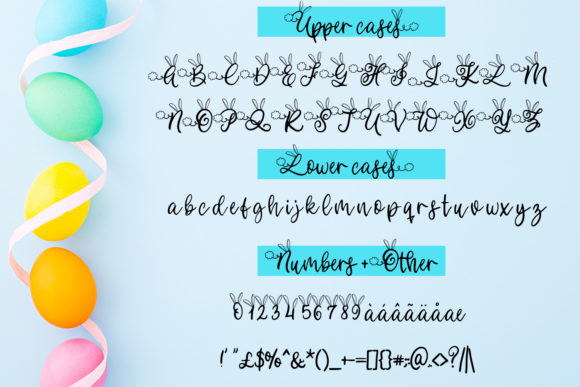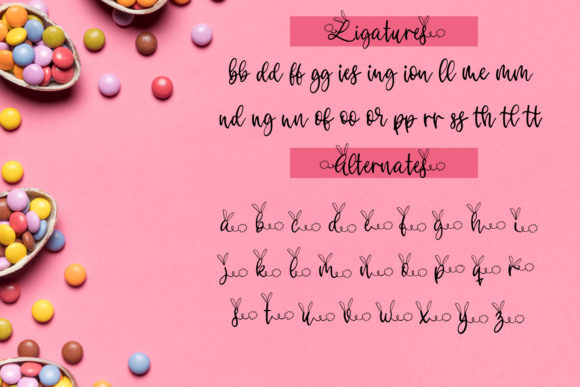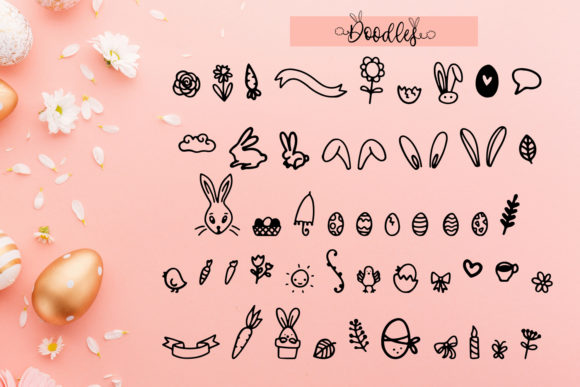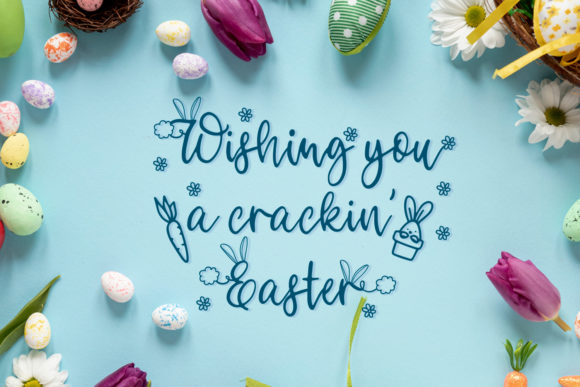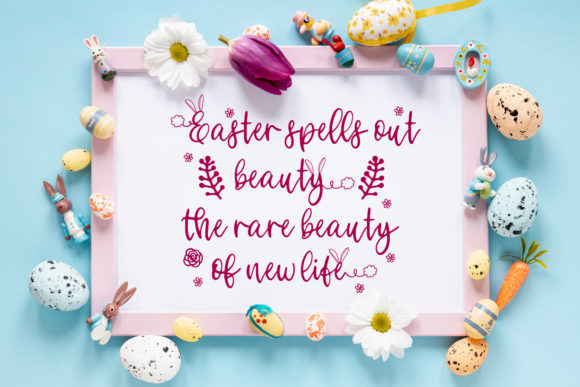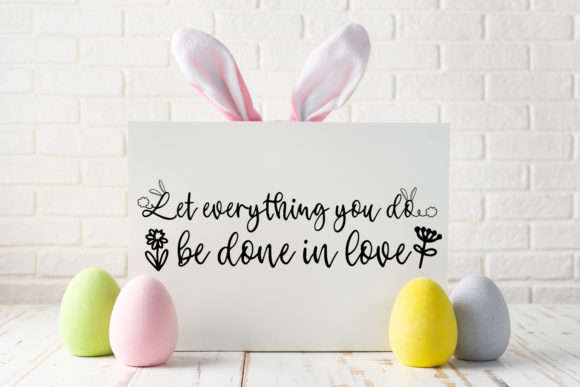
HomeScript FontsBunny Tail Font Script Fonts Bunny Tail Font FacebookXPinterestWhatsApp Bunny Tail Font Poster 2 Bunny Tail Font Poster 3 Bunny Tail Font Poster 4 Bunny Tail Font Poster 5 Bunny Tail Font Poster 6 Bunny Tail Font Poster 7 About Bunny Tail Font Bunny Tail celebrates all things Easter. This cute script will work like a charm in any Easter or spring craft! DOWNLOAD ON CREATIVE FABRICAThis font is sold and delivered by Creative Fabrica. Font Canyon may earn a commission if you buy through this link. People also explored Flora Font Melpomene Herne Capitals Font Slither Bakery Font Superstructural Font Holiday Stone Hearts Font Santa Font TA Father 60 Font 272 0 TagsBunny Tail Font Previous articleVinesday FontNext articleBread Ligth Font LEAVE A REPLY Cancel reply Comment: Please enter your comment! Name:* Please enter your name here Email:* You have entered an incorrect email address! Please enter your email address here Website: Save my name, email, and website in this browser for the next time I comment. Personal Use Free Deling Personal Use Free Read more about this font Predators Personal Use Free Read more about this font Nouradilla Script Free Version Personal Use Free Read more about this font Burgie Personal Use Free Read more about this font BLOG Exploring Font Trends Shaping Communication in the Digital Era Fonts, like all design elements, are subject to trends. They play a crucial role in communicating a brand's personality,... Modern Sans-Serif Fonts That Brands Love in 2025 Top 7 Google Fonts Alternatives for Faster and Privacy-Friendly Web Design (2025) Free Fonts Risk: Why Free Fonts Can Be Dangerous for Designers